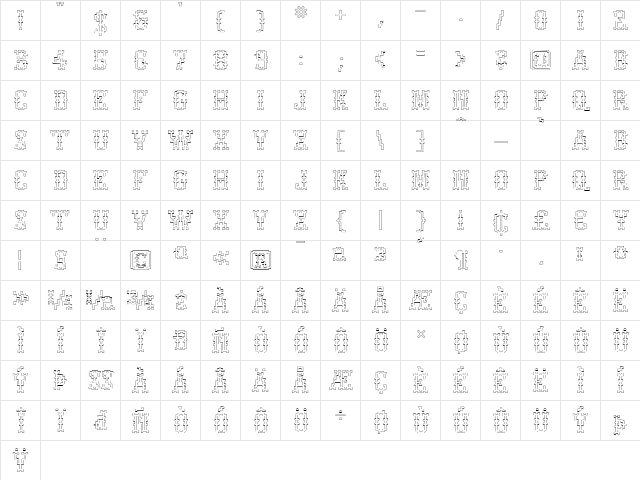
GretelStrongOutline Regular
Design Context for GretelStrongOutline Typeface
GretelStrongOutline is built around its visual character rather than neutral utility — its distinctive forms are designed to make an impression at display sizes.
Font Pairing: Pair with a clean neutral sans-serif for body copy to let GretelStrongOutline's character lead without overwhelming the composition.
Pro Tip: Use GretelStrongOutline exclusively at display sizes — it was designed to be seen, not read at length. Let a neutral companion handle body copy.